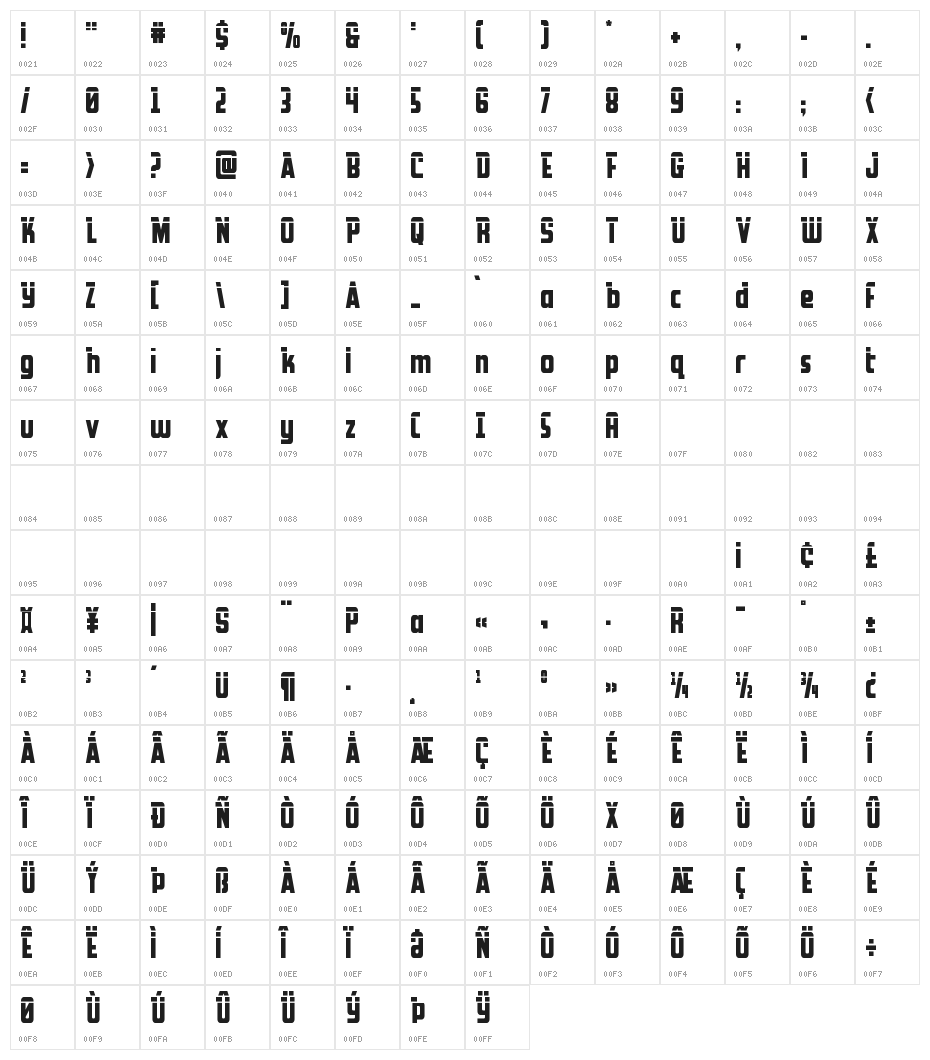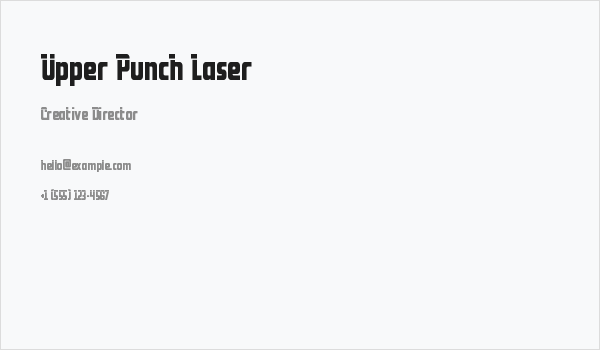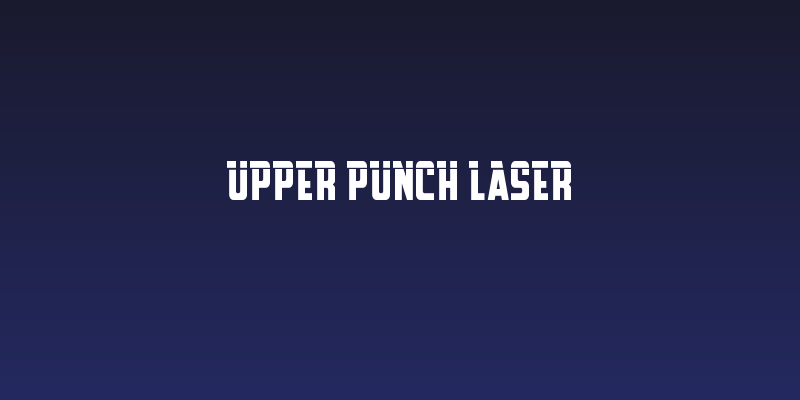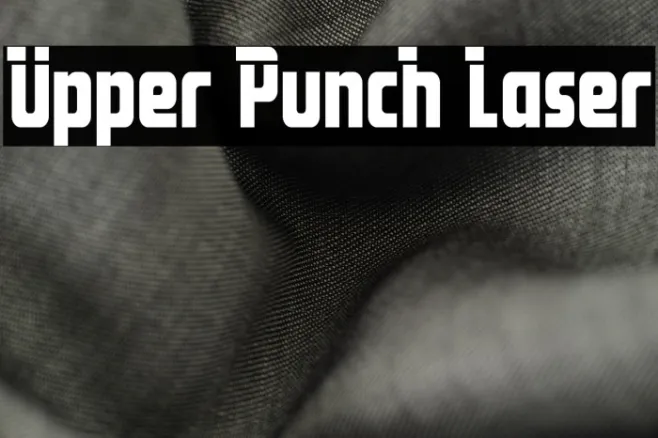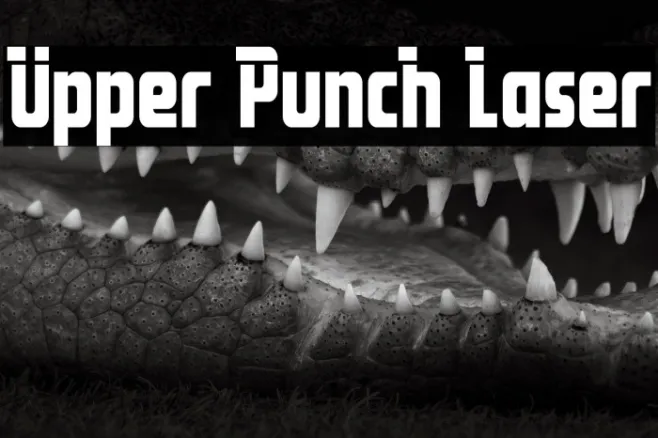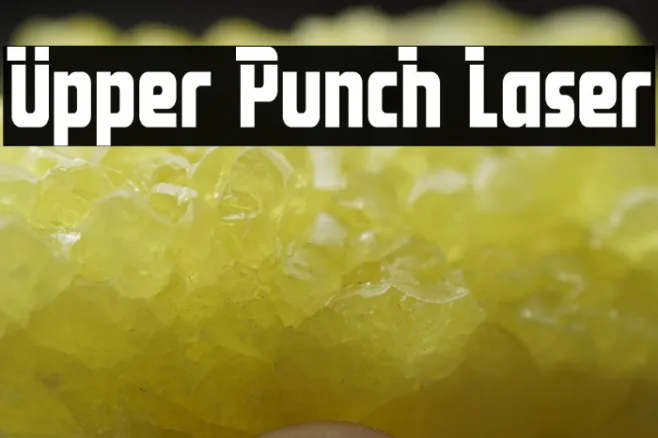
Upper Punch Laser Font
Upper Punch Laser Description
This font features a bold and impactful design with a strong geometric structure. The characters are uniformly wide, with a blocky appearance that conveys strength and modernity. The uppercase letters are particularly striking, with sharp angles and a consistent height that creates a cohesive look. The lowercase letters maintain the boldness of the uppercase, with slightly rounded edges that add a touch of softness. Numbers and special characters are designed to match the overall style, ensuring a seamless integration across different uses. The font's high contrast and thick strokes make it ideal for attention-grabbing headlines and logos.
| Proposed Projects | Ideal for branding, posters, and any project requiring a strong visual impact. |